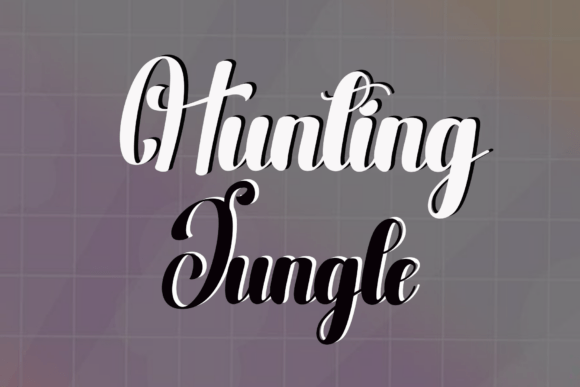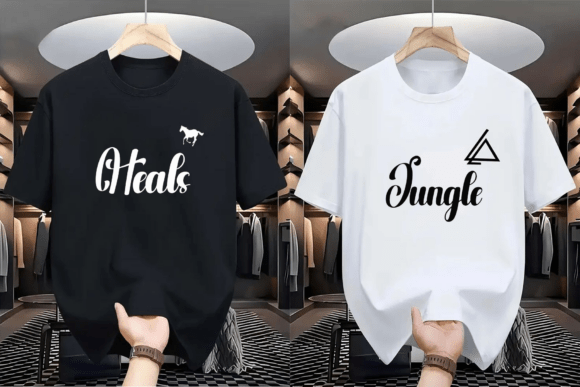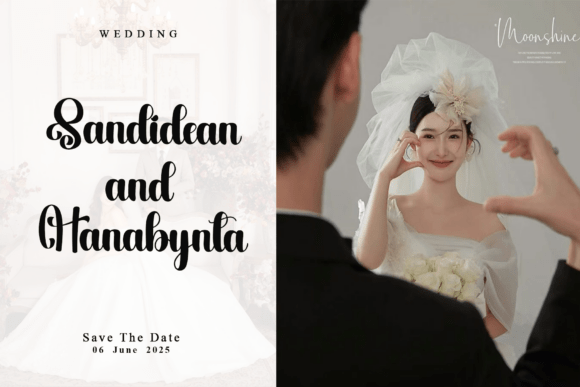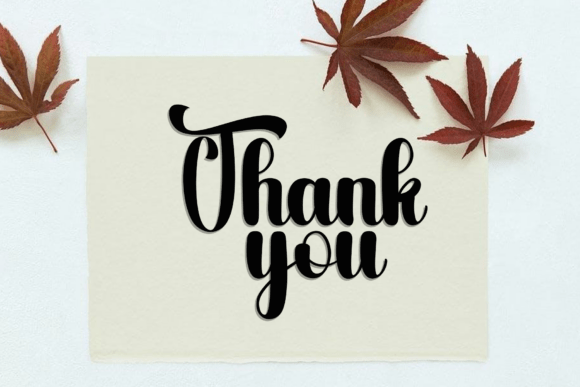
Introducing Handame Bumbling Font: Elevate Your Designs with Timeless Elegance
In the world of typography, a font can make or break the aesthetic of a design project. For designers and crafters seeking a touch of sophistication and classic charm, the Handame Bumbling font is an exceptional choice. This stylish handwritten font boasts a contemporary atmosphere, impeccable form, and a balanced, varied design that enhances the beauty of any project.
Inspired by Timeless Classic Calligraphy
Handame Bumbling draws inspiration from the elegance of classic calligraphy, bringing a sense of tradition and refinement to modern design. The font’s creation was guided by the principles of timeless typography, ensuring it remains relevant and stylish across various applications. Whether you’re working on a branding project, crafting beautiful wedding invitations, or designing engaging editorial content, Handame Bumbling offers the versatility and charm to elevate your work.
Characteristics of Handame Bumbling Font
- Contemporary Atmosphere: Despite its classic inspiration, Handame Bumbling exudes a contemporary vibe that fits seamlessly into modern design trends. Its clean lines and fluid strokes make it perfect for designs that require a fresh yet sophisticated look.
- Impeccable Form: The font’s design focuses on impeccable form, ensuring that each letter and character contributes to a cohesive and aesthetically pleasing text. This attention to detail makes Handame Bumbling stand out in any design.
- Balanced and Varied: Handame Bumbling was crafted to offer balance and variation, making it highly adaptable for different design needs. The font includes a range of weights and styles, allowing designers to experiment with different looks and tones.
Applications of Handame Bumbling Font
The versatility of Handame Bumbling makes it suitable for a wide range of design projects. Here are some of the areas where this font truly shines:
- Branding and Logotypes: Create memorable brand identities with Handame Bumbling’s unique and stylish letterforms.
- Wedding and Event Invitations: Add a touch of elegance and sophistication to your wedding or event invitations with this beautiful font.
- Editorial Design: Enhance the readability and aesthetic of your editorial content, whether it’s for magazines, blogs, or newspapers.
- Packaging: Stand out on store shelves with eye-catching packaging designs that leverage the distinctive charm of Handame Bumbling.
Tips for Using Handame Bumbling Effectively
To maximize the potential of Handame Bumbling in your designs, consider the following tips:
- Pair with Complementary Fonts: Combine Handame Bumbling with sans-serif fonts for contrast or with other script fonts for a layered, textured look.
- Experiment with Colors: While the font’s beauty shines in black and white, experimenting with colors can add an extra dimension to your design.
- Pay Attention to Spacing: Ensure adequate spacing between letters and lines to maintain readability and highlight the font’s elegant features.
Handame Bumbling font offers designers and crafters a unique opportunity to infuse their projects with timeless elegance and modern flair. Its classic inspiration, combined with contemporary design principles, makes it a versatile and stylish choice for a wide range of applications. By incorporating Handame Bumbling into your design toolkit, you’ll be well-equipped to create visually stunning and memorable projects that stand out in any creative field.
Whether you’re a professional designer or a crafting enthusiast, Handame Bumbling is poised to become your go-to font for projects that demand a touch of sophistication and charm. Explore its capabilities and discover how this stylish handwritten font can elevate your designs to new heights of beauty and effectiveness.